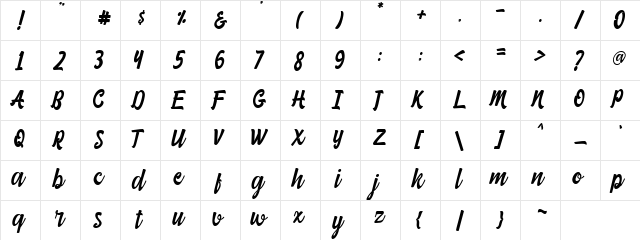
Strike Alone Script Regular
Design Context for Strike Alone Script Typeface
Strike Alone Script brings a calligraphic fluidity to the page — its connecting strokes and expressive curves give it an unmistakably human quality.
Font Pairing: Combine Strike Alone Script with a simple geometric sans for maximum contrast — the tension between flowing curves and clean structure is a classic typographic pairing.
Pro Tip: Use Strike Alone Script for short runs of text — names, titles, or taglines. Extended body copy in script faces tires the eye quickly.